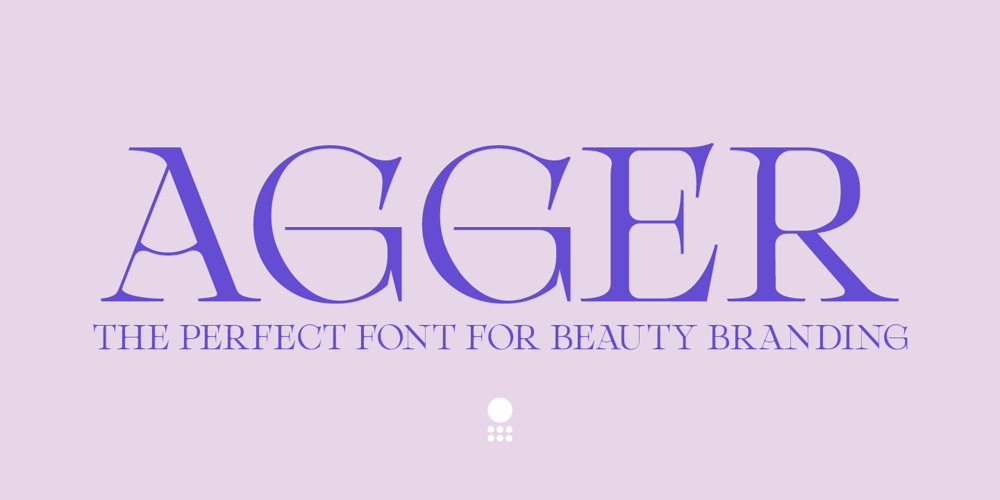
Agger serif
Agger serif font
Agger serif Font Family was designed by Paul Henry Robb and published by S6 Foundry. Agger serif contains 2 styles and family package options. Agger is a contemporary serif typeface featuring large open counters, curved, round forms, creating a modern and elegant glyph set. The extreme contrast between thick and thin strokes gives Agger a harmonic and stylish look. Designed with an elegance to the letterforms, the font is adapt for the beauty and the cosmetic industry, giving each project a unique style and feel. Agger is perfectly suited for editorial design, branding, magazines, logos, headings, and more.The family Latin supports Western, Central, South Eastern, South American, Oceanian, Pan African, Vietnamese, and Sámi.